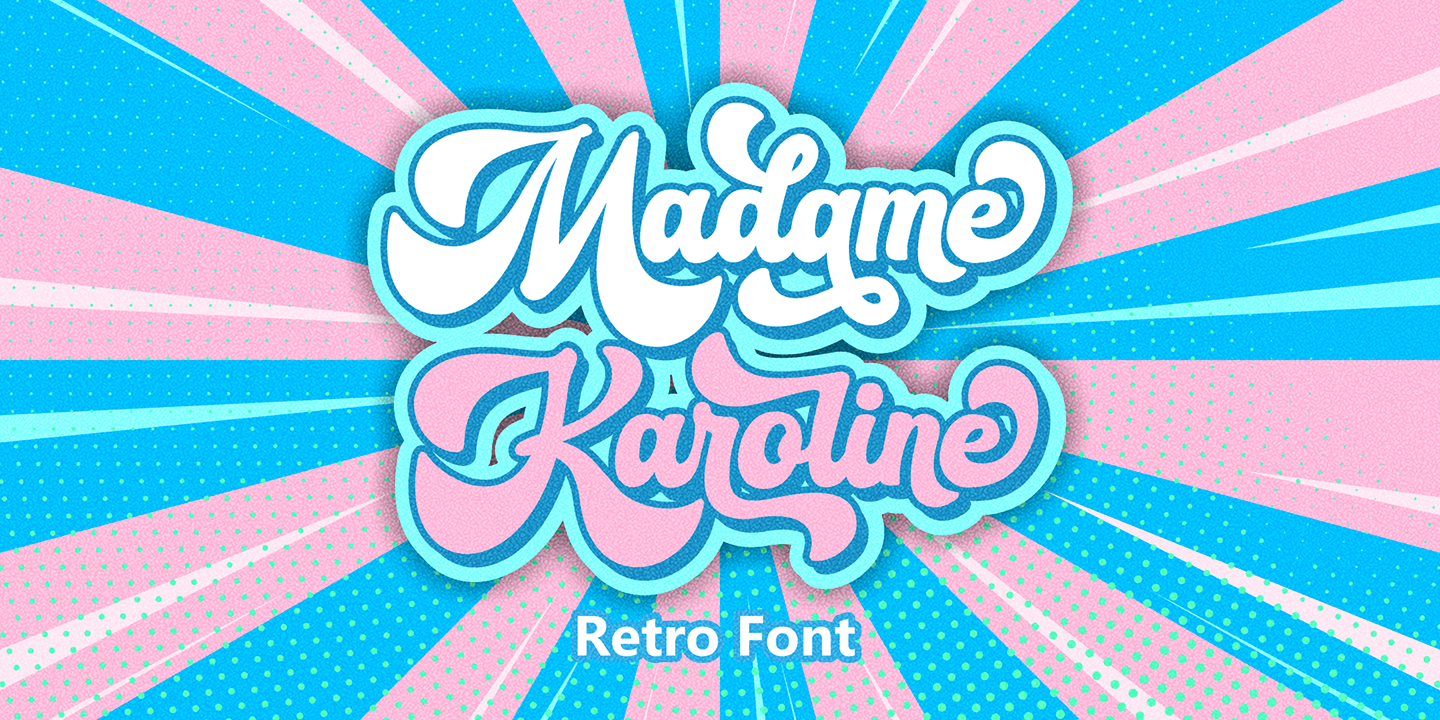
Madame Karoline Font is excellent for haute couture fashion branding, luxury beauty salon signage, elegant French bistro marketing, high-end jewelry packaging, sophisticated perfume labels, aristocratic wedding invitations, Parisian boutique communications, luxury spa treatments, refined cosmetic branding, and European luxury hospitality advertising.
What makes Madame Karoline Font exciting is its Parisian sophistication that perfectly captures the timeless elegance and aristocratic refinement found in French haute couture and European luxury traditions. This typeface features graceful script letterforms with aristocratic proportions and French-inspired flourishes that evoke the sophisticated charm of Parisian salons and the refined taste of European nobility. The font's aristocratic personality and French elegance make it ideal for luxury brands seeking to convey sophistication, heritage, and the exquisite refinement that comes from centuries of French cultural excellence and aristocratic taste.
Madame Karoline Font family includes elegant weight variations and aristocratic alternatives that enhance its French luxury appeal while providing design flexibility for haute couture and luxury applications. The font features sophisticated ligatures, French-inspired ornaments, and aristocratic character variations that create authentic Parisian atmosphere for luxury and heritage branding.
Luxury fashion houses and European heritage brands consistently select Madame Karoline Font Free Download for projects requiring authentic French elegance and aristocratic credibility. The font's sophisticated character excels in applications targeting affluent consumers who appreciate genuine French sophistication and European luxury heritage. Whether you're designing for haute couture fashion, luxury beauty brands, or French hospitality venues, this refined typeface delivers the Parisian authenticity and aristocratic elegance that resonates with audiences seeking genuine French luxury and the sophisticated refinement that defines European cultural excellence and aristocratic taste.